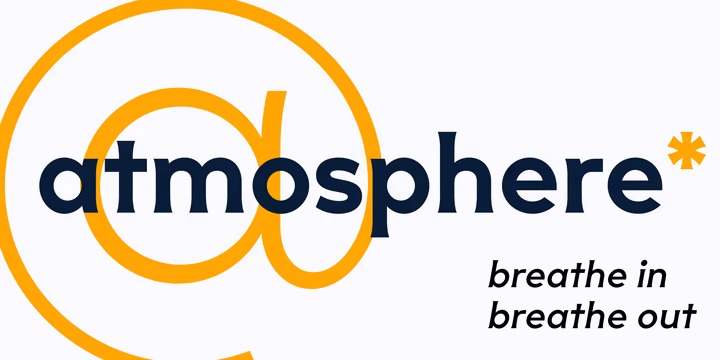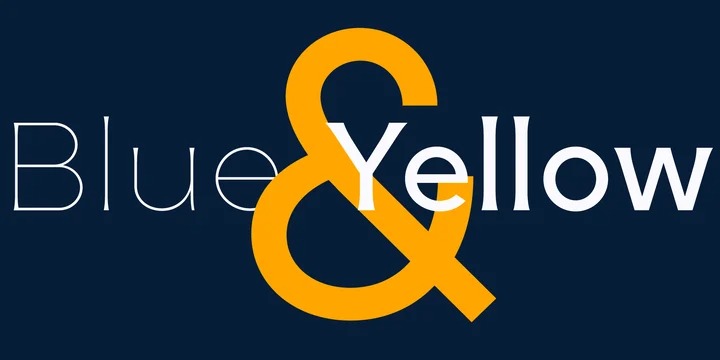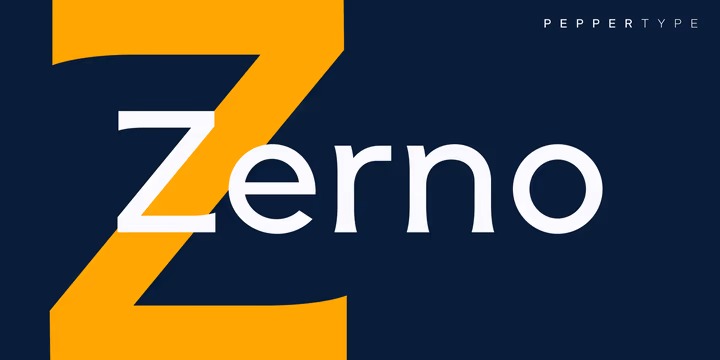
Zerno Serif Font
This is a geometric serif typeface manufactured by Pepper Type . It gains its expressive character from a dynamic sweep in the curves and high-contrast transitions. Its symmetrical flared serifs are reminiscent of stone carving techniques. With weights ranging from Thin to Black, it is versatile enough to be used in any environment – from screen to literal stone carving, as well as from posters to body copy that stands out.